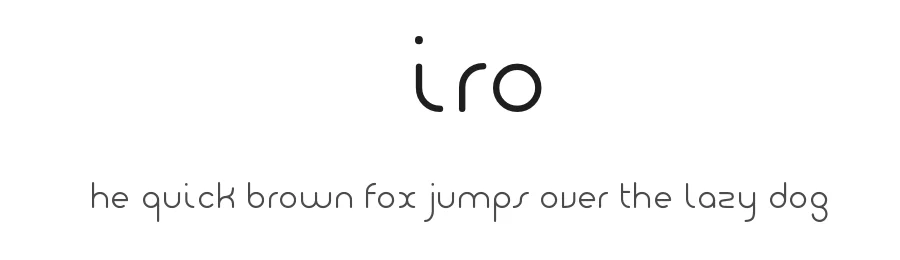
About Subtle Sans Font
Simple lines, classic shapes. Comes in 3 weights.
The UltraLight is only for HUGE titles, use Regular or Light for smaller sizes.
Subtle Sans Font is a versatile sans-serif font that works for both headings and body text. Pair it with a contrasting serif or slab serif font to add visual interest and a clear distinction between titles and body copy.
Subtle Sans Font
by Atle Mo